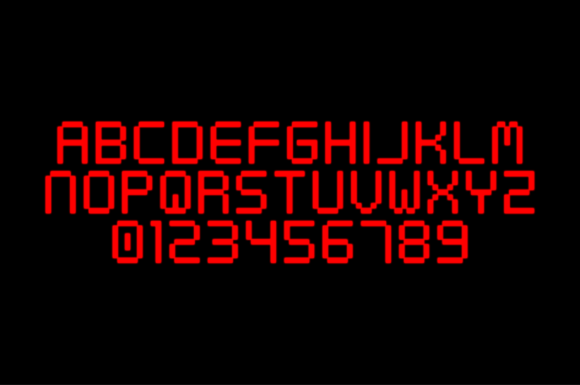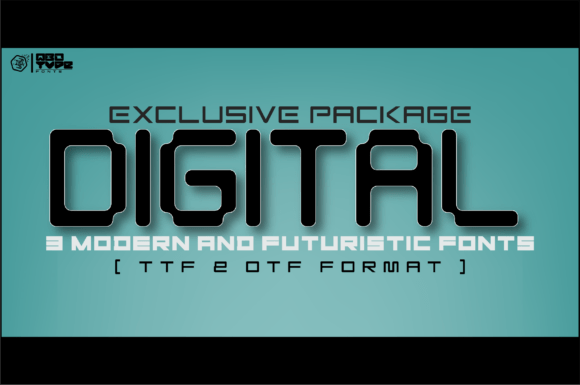
Introducing Digital: The Ultimate Tech-Inspired Display Typeface
In the rapidly evolving world of digital design, a font can make all the difference in capturing the essence of your brand or project. Imagine a typeface that embodies the spirit of innovation, technology, and virtual reality. Meet Digital, a high-octane display font designed to revolutionize your visual identity. In this article, we’ll dive into the world of Digital, exploring its unique features, and the endless possibilities it offers for designers and crafters.
The Birth of Digital
Digital is a bold, futuristic typeface born from the intersection of technology and design. Its rigid, square-based geometry and pixel-perfect construction make it a perfect representation of the digital age. Inspired by late-night coding sessions, early console gaming, and futuristic hardware interfaces, Digital is the perfect blend of form and function.
Key Features of Digital
- Rigid, Square-Based Geometry: Digital’s foundation is built on a grid of squares, giving it a sturdy, technological feel that’s perfect for futuristic designs.
- Pixel-Perfect Construction: Every line, curve, and edge is carefully crafted to ensure a pixel-perfect rendering, making it ideal for digital displays and high-resolution screens.
- Bold, Monolinear Strokes: Digital’s bold strokes are optimized for a powerful effect, making it a standout choice for attention-grabbing headlines and titles.
Perfect for Cyberpunk Branding and Tech-Focused Designs
Digital is specifically designed for projects that require a strong, technological aesthetic. Its unique features make it an excellent choice for:
- Cyberpunk Branding: Give your brand a futuristic edge with Digital’s bold, neon-ready energy.
- E-Sports Logos: Create a powerful visual identity for your gaming team or event with Digital’s high-octane style.
- Tech-Focused YouTube Banners: Elevate your channel’s visual identity with Digital’s futuristic, attention-grabbing design.
- Digital Security Graphics: Add a layer of sophistication and technological expertise to your security-related projects.
Digital is more than just a font – it’s a design tool that can elevate your projects to new heights. Whether you’re building:
- Futuristic Heads-Up Displays (HUDs): Create stunning, high-tech interfaces with Digital’s precision-crafted lines and curves.
- Gritty Industrial Logos: Add a touch of technological sophistication to your industrial designs with Digital’s bold, geometric style.
- Virtual Reality Experiences: Transport your audience to new worlds with Digital’s immersive, futuristic aesthetic.
In conclusion, Digital is a game-changing display typeface that embodies the spirit of innovation and technology. Its unique features, bold style, and pixel-perfect construction make it the perfect choice for designers and crafters looking to create futuristic, attention-grabbing designs. Whether you’re working on a cyberpunk branding project, e-sports logo, or tech-focused YouTube banner, Digital provides the structural precision and neon-ready energy your project demands. Unlock the full potential of Digital and take your designs to the next level.